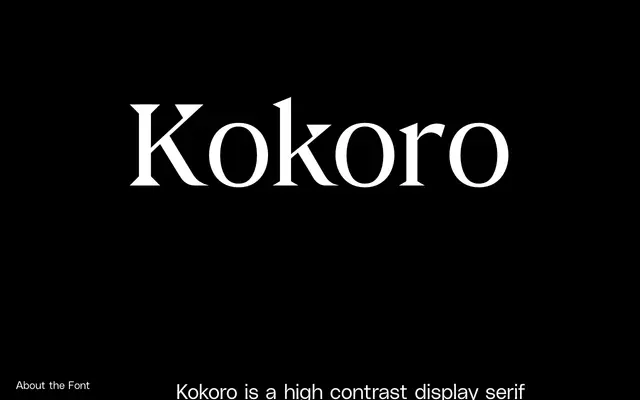
Kokoro
A high-contrast display serif in four weights with matching italics, mixing calm italic forms with an edgier upright character.
Eight styles spanning Regular to Heavy, each with a carefully drawn italic that takes on a noticeably different personality to its upright counterpart. The roman cuts lean expressive and energetic while the italics pull back towards something more composed and distinctive. Aimed at editorial and display work where a serif with some attitude is needed.
Kokoro is explicitly positioned as a display serif with high contrast strokes and expressive quirky character, making it unsuitable for extended text and firmly in the display category.